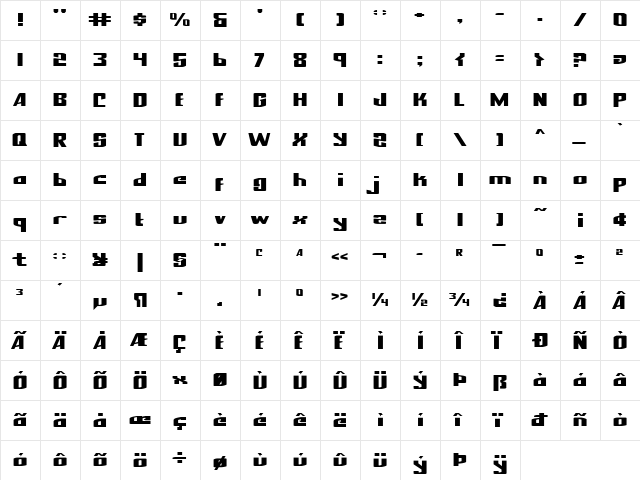
National Express Expanded Expanded
Design Context for National Express Expanded Typeface
National Express Expanded is a composed and adaptable typeface that performs quietly and consistently across a wide range of design contexts.